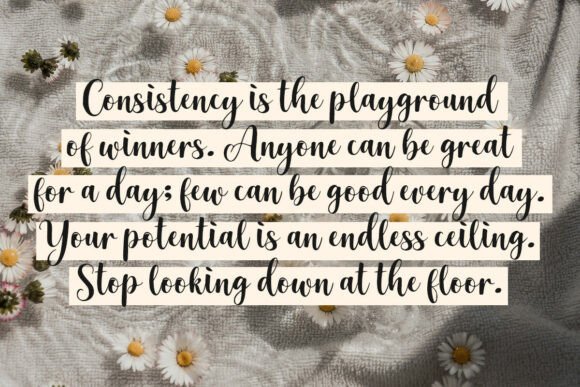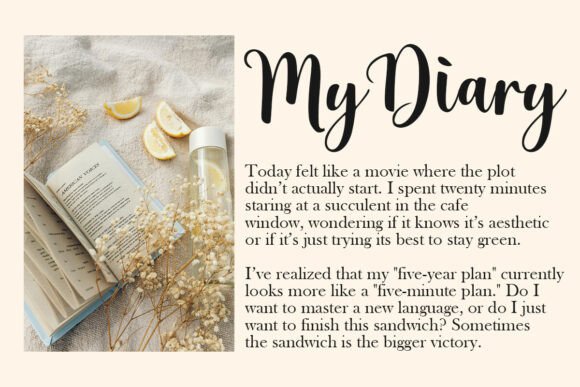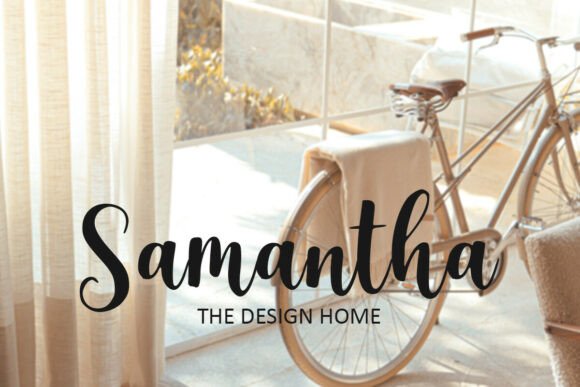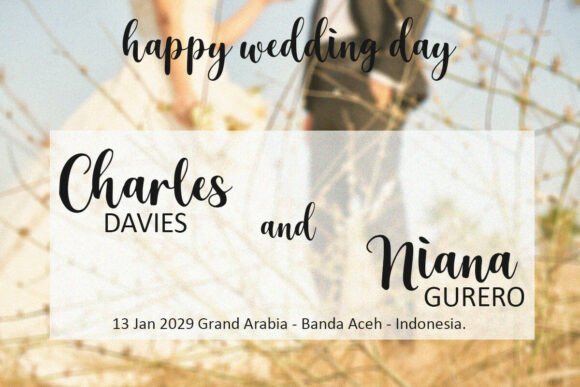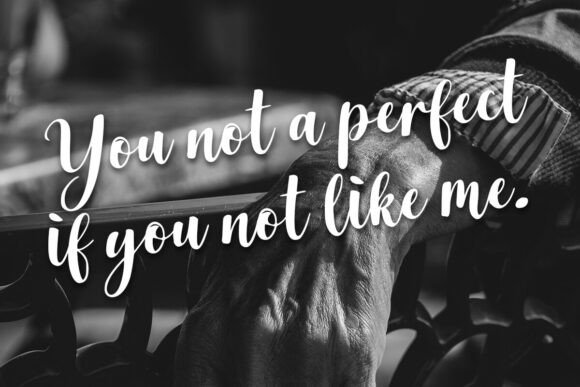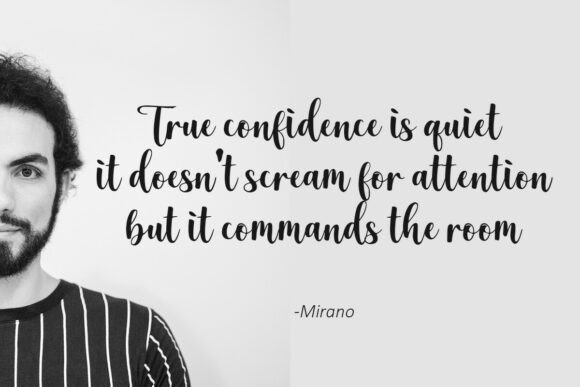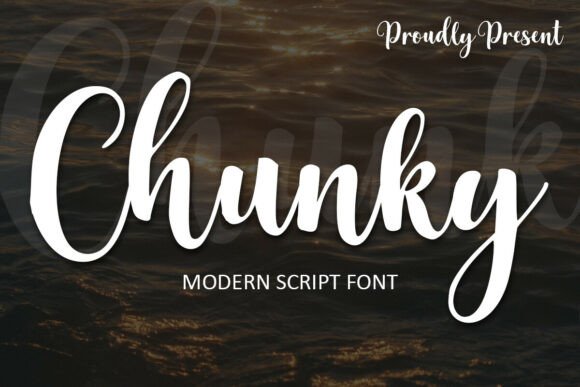
Elevate Your Creative Projects with Chunky: The Ultimate Contemporary Script Font
In the world of typography, a well-chosen font can make all the difference in elevating your creative projects from ordinary to extraordinary. For designers and crafters looking to make a statement, Chunky is a game-changing contemporary script font that perfectly balances fluid calligraphy with a thick, impactful weight. This stunning typeface is designed to bring an authentic hand-lettered feel to the digital canvas, making it ideal for those who want their message to be both sophisticated and impossible to miss.
The Unique Characteristics of Chunky
Unlike traditional thin scripts, Chunky features heavy downstrokes and seamless transitions that provide excellent readability and a strong visual anchor. This bold script font is perfect for high-impact branding, logos, and luxury packaging, where making a lasting impression is crucial. The heavy downstrokes add a sense of drama and elegance, while the fluid connections between letters create a sense of movement and fluidity.
One of the standout features of Chunky is its versatility. Whether you are designing stylish social media graphics, artisanal apparel, or elegant event stationery, this font’s organic aesthetic ensures your work stands out with a rhythmic, high-end touch. The Chunky font is perfect for designers who want to add a touch of sophistication and glamour to their projects.
The Benefits of Using Chunky in Your Designs
So, why choose Chunky for your creative projects? Here are just a few benefits of using this stunning script font:
- Excellent Readability: The heavy downstrokes and clear letterforms make Chunky easy to read, even at smaller sizes.
- High-Impact Branding: The bold, thick weight of Chunky makes it perfect for logos, branding, and advertising, where you want to make a lasting impression.
- Versatility: Chunky can be used for a wide range of projects, from social media graphics to luxury packaging, and everything in between.
- Authentic Hand-Lettered Feel: The fluid connections and imperfections of Chunky give it an authentic hand-lettered feel that adds a touch of elegance and sophistication to your designs.
Pairing Chunky with Other Fonts
To get the best visual results from Chunky, it’s essential to pair it with a complementary font. A minimalist Sans-Serif font is the perfect match for Chunky, as it creates a professional contrast that lets the typography truly shine. The clean lines and simplicity of a Sans-Serif font provide a beautiful contrast to the bold, fluid strokes of Chunky, creating a visually appealing combination that elevates your designs.
Tips for Using Chunky in Your Designs
Here are a few tips for using Chunky in your designs:
- Use it as a Headline Font: Chunky is perfect for headlines, titles, and logos, where you want to make a bold statement.
- Experiment with Colors: The bold weight of Chunky makes it perfect for use with bright, bold colors that add an extra touch of drama and elegance.
- Don’t be Afraid to Mix and Match: Try pairing Chunky with other fonts, textures, and graphics to create a unique and eye-catching design.
In conclusion, Chunky is a game-changing contemporary script font that is perfect for designers and crafters looking to elevate their creative projects. With its unique blend of fluid calligraphy and thick, impactful weight, Chunky brings an authentic hand-lettered feel to the digital canvas. Whether you are designing high-impact branding, logos, or luxury packaging, or simply want to add a touch of sophistication and elegance to your social media graphics or event stationery, Chunky is the perfect choice. So why not give it a try and see the difference it can make in your designs?